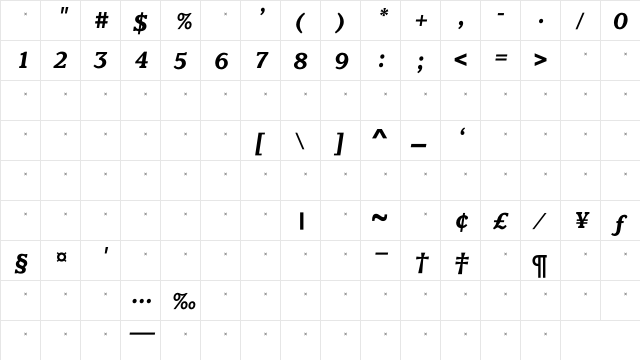
ClaremontBoldItalTab Regular
Design Context for ClaremontBoldItalTab Typeface
ClaremontBoldItalTab is a composed and adaptable typeface that performs quietly and consistently across a wide range of design contexts. Its bold stroke weight gives it real presence on the page.